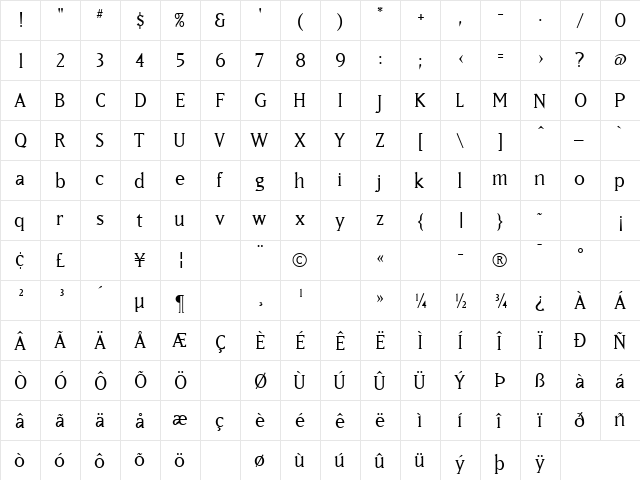
MatrixBookLining Regular Font Preview
MatrixBookLining Regular
Design Context for MatrixBookLining Typeface
MatrixBookLining takes a measured approach to typography — its balanced proportions and neutral character make it a reliable workhorse for both digital and print work.